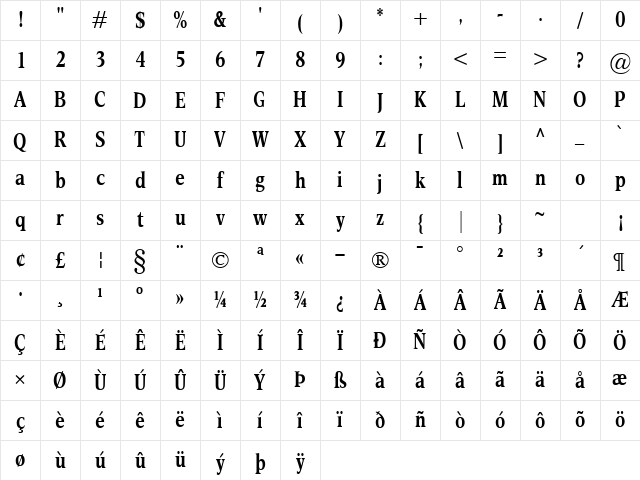
Esperanto Cond Bold Free Font
Esperanto Cond Bold
Esperanto Cond Family
Design Context for Esperanto Cond
Esperanto Cond is a composed and adaptable typeface that performs quietly and consistently across a wide range of design contexts. Its bold stroke weight gives it real presence on the page. Its narrow stance lets it pack a punch even in space-constrained designs.